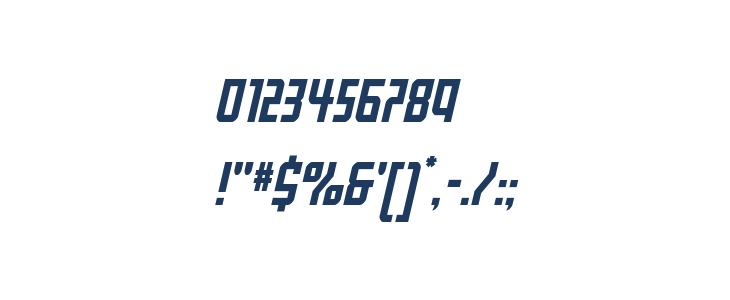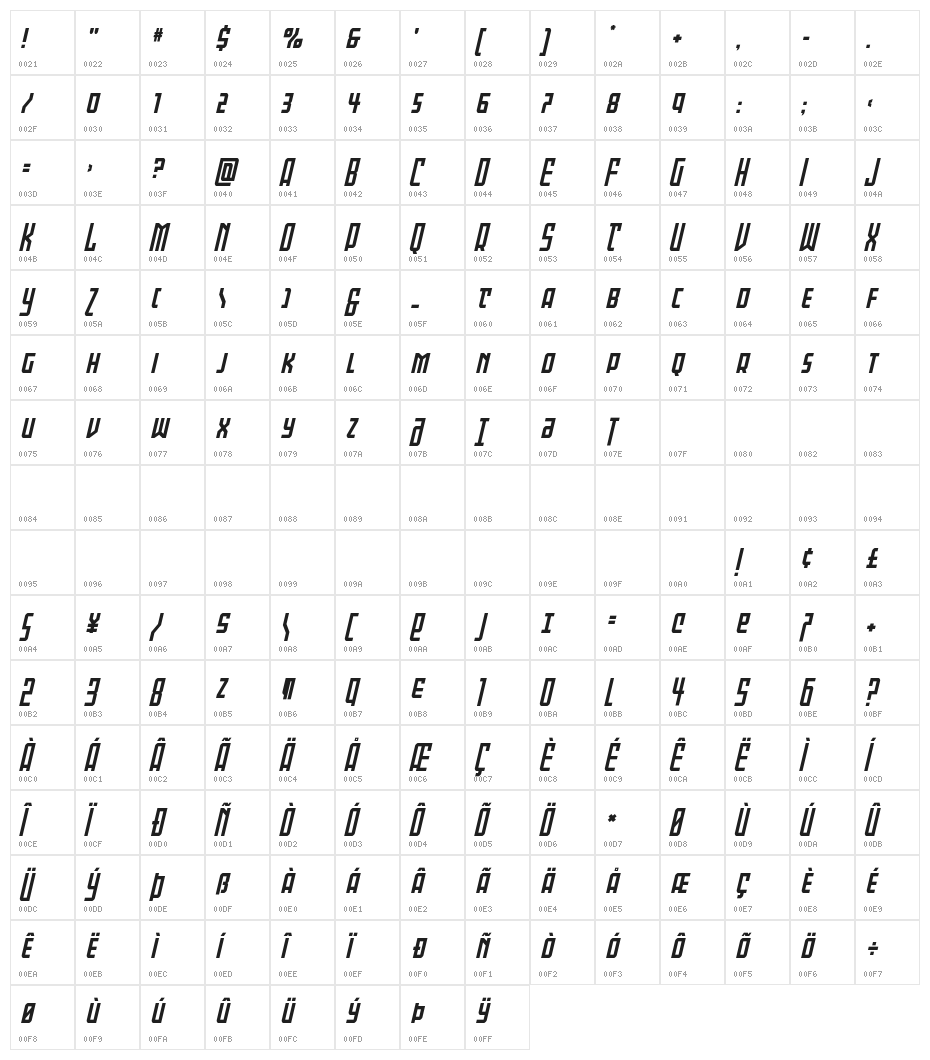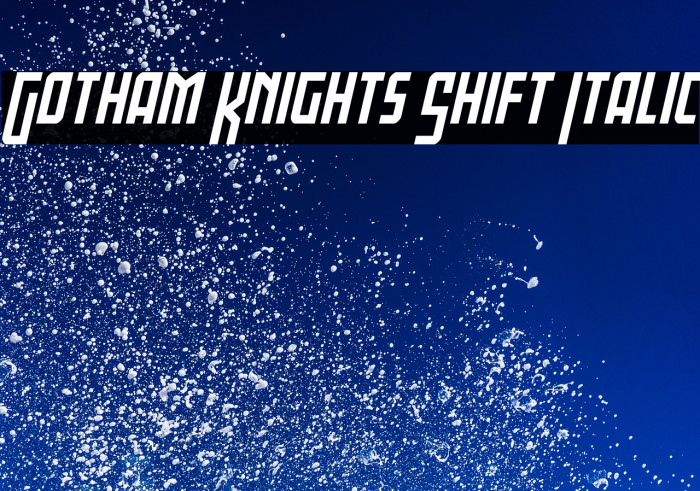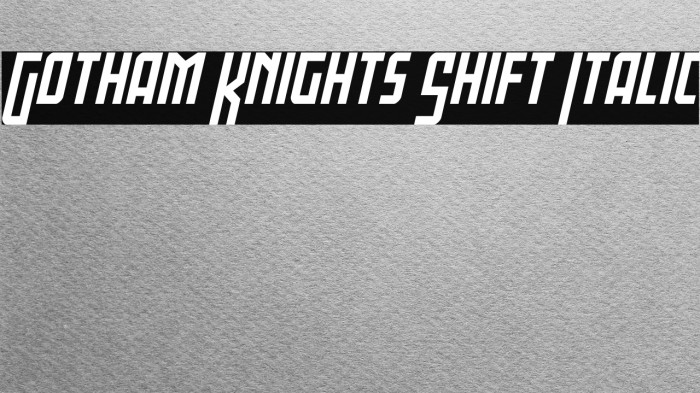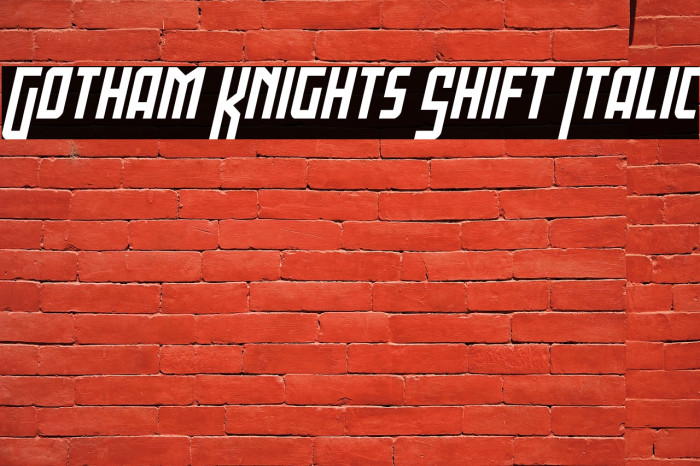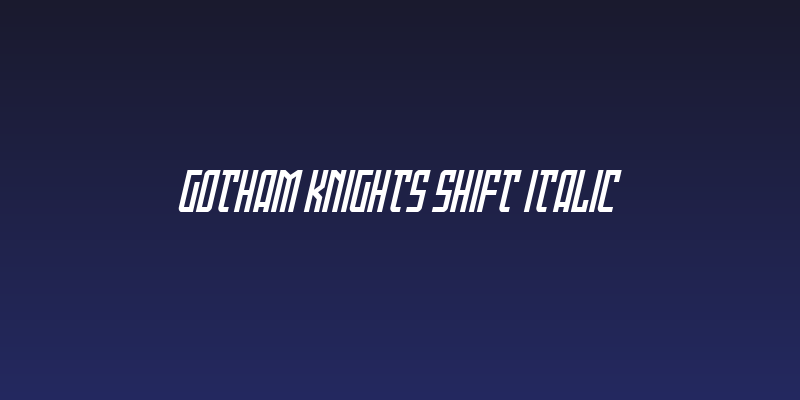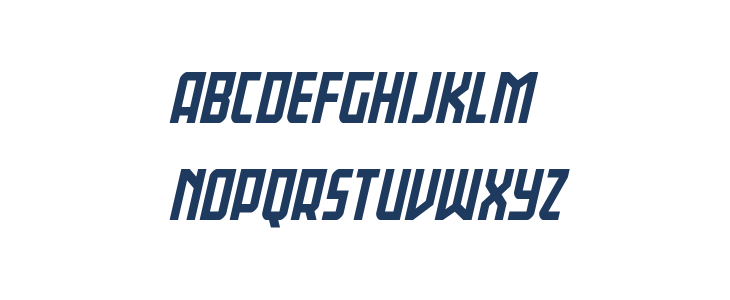
Gotham Knights Shift Italic Font
Gotham Knights Shift Italic Description
This font features a bold and dynamic style with a strong italic slant, giving it a sense of motion and energy. The characters are designed with sharp angles and a geometric structure, creating a modern and futuristic appearance. The uppercase letters are particularly striking, with a consistent height and width that enhances readability. The numerals and special characters maintain the same bold and angular design, ensuring a cohesive look across all text elements. The font's unique style makes it ideal for projects that require a bold statement or a modern aesthetic.
| Proposed Projects | Ideal for video game titles, sports branding, futuristic posters, and dynamic advertising campaigns. |